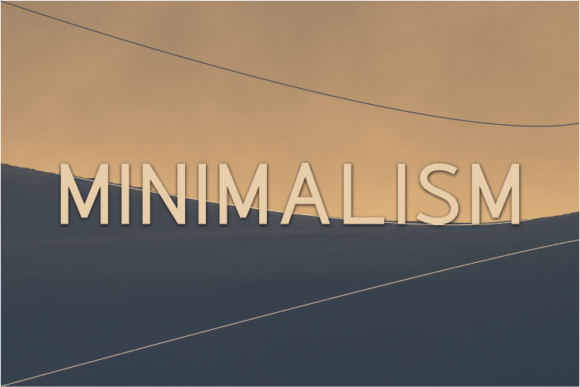
Introducing the Minimalism Font, the epitome of modern sophistication and elegance. This captivating sans serif font family, meticulously crafted by A Christie, exudes a timeless charm that will elevate your creations to new heights.
With its clean lines, sharp angles, and subtle curves, Minimalism Font embodies the essence of modern design. Its versatility and uniqueness make it the perfect choice for a wide range of projects, from sleek logos and chic wedding invitations to eye-catching advertisements and stylish magazine layouts.
Unleash your creativity and let Minimalism Font transform your words into stunning visual masterpieces. Whether you're a seasoned designer or just starting out, this font will effortlessly enhance your work, adding a touch of sophistication and polish to every project.
With its wide range of weights and styles, Minimalism Font offers endless possibilities for customization. Experiment with different combinations to create unique and captivating designs that will leave a lasting impression on your audience.
Take your designs to the next level with Minimalism Font, the ultimate choice for modern creatives seeking a font that embodies both style and functionality. Add it to your collection today and experience the transformative power of timeless design.